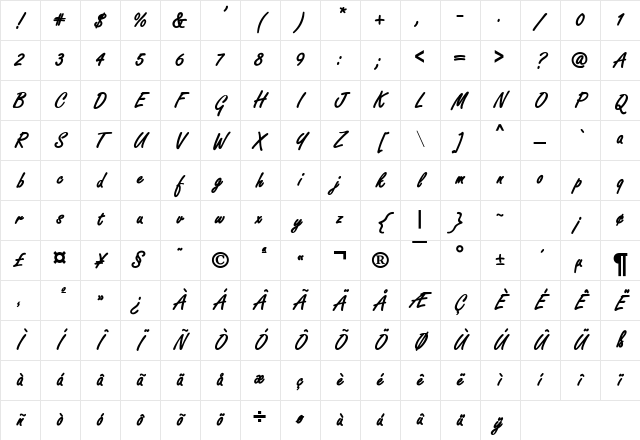
Complete Freeze Bold glyph index. Displaying only characters natively supported by Freeze Bold font.
Freeze is a composed and adaptable typeface that performs quietly and consistently across a wide range of design contexts. Its bold stroke weight gives it real presence on the page.